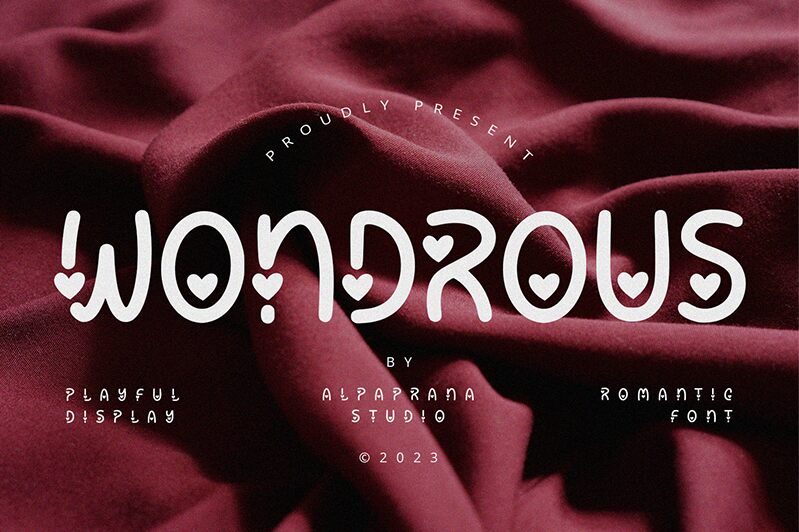
Wondrous
Wondrous, a captivating creation by Alpaprana Studio, embodies the essence of affection and charm. This valentine-style font weaves romance into each curve and swash, offering a delightful dance of letters perfect for heartfelt projects. It is an ideal choice for crafting Valentine's Day cards, wedding invitations, or any design that desires a touch of love.
The playful yet elegant nature of Wondrous makes it versatile across various creative endeavors. Its aesthetic appeal lies in the harmonious blend of whimsical loops and tender strokes that evoke warm emotions. The font's unique characteristics—such as heart-shaped flourishes—ensure that any message written with Wondrous is not just read but felt.
Bringing together visual beauty and emotional resonance, Wondrous stands out as a font that adds personality and sentiment to your work, making it fitting for those special occasions that call for something truly extraordinary.